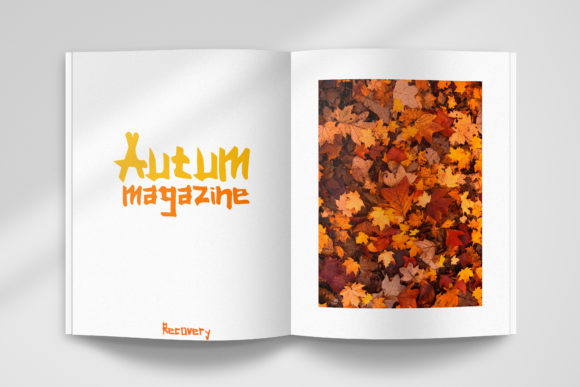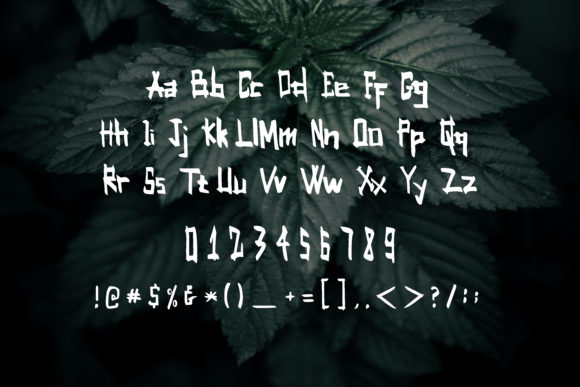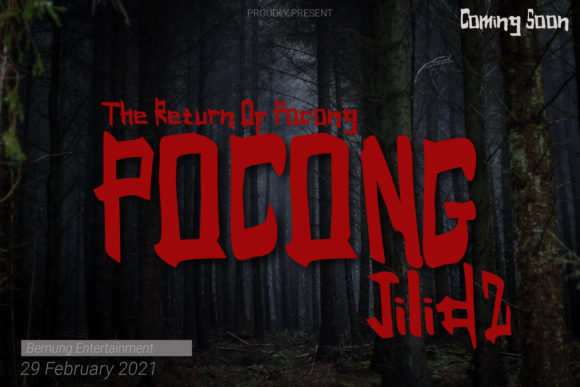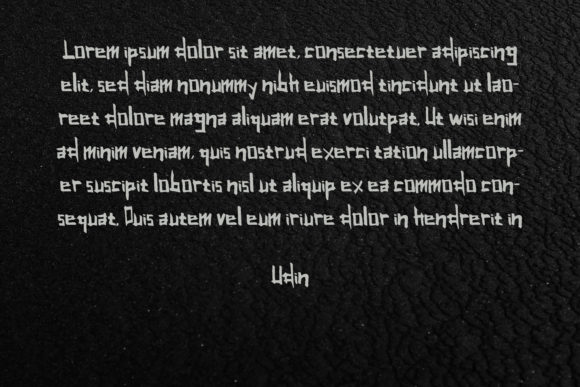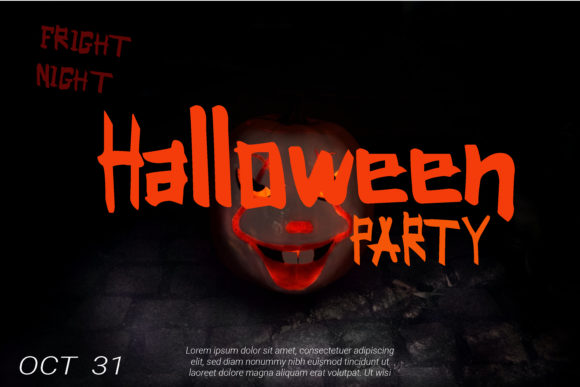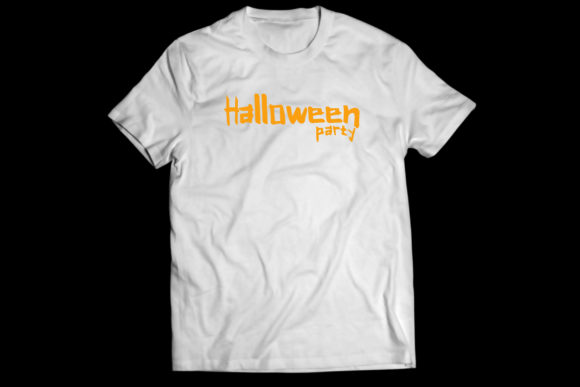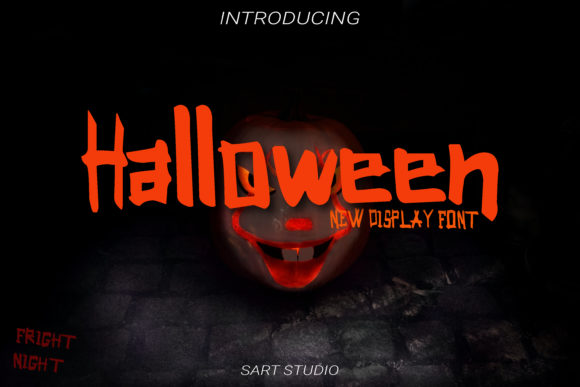
Unleash the Spooky Spirit: A Comprehensive Guide to Halloween Font
Halloween is just around the corner, and with it comes the excitement of creating spooky and fun designs for various projects. Whether you’re a designer, crafter, or simply a Halloween enthusiast, having the right font can make all the difference in bringing your ideas to life. That’s where the Halloween Font comes in – a fun and simple lettered display font designed specifically for Halloween-themed designs.
What is Halloween Font?
Halloween Font is a specially crafted font, perfect for creating eye-catching and festive designs for Halloween parties, decorations, and products. This font is a Halloween party themed display font, ideal for use on t-shirts, posters, movie titles, parties, product names, and any other Halloween-themed designs. Its playful and spooky style is sure to add a touch of Halloween spirit to your creations.
Key Features of Halloween Font
- Fun and Simple Design: The Halloween Font boasts a fun and simple lettered design that’s perfect for creating bold and eye-catching text.
- Halloween-themed: As the name suggests, this font is specifically designed with Halloween in mind, making it perfect for seasonal designs.
- Versatile: From t-shirts and posters to movie titles and product names, this font can be used for a wide range of Halloween-themed projects.
Uses of Halloween Font
The Halloween Font is incredibly versatile and can be used for a variety of projects, including:
- T-Shirts and Apparel: Create spooky and fun designs for Halloween t-shirts, hoodies, and other apparel.
- Posters and Flyers: Design eye-catching posters and flyers for Halloween parties, haunted houses, and other events.
- Movie Titles and Credits: Add a touch of Halloween spirit to your movie titles and credits with this spooky font.
- Product Names and Packaging: Use the Halloween Font to create spooky and fun product names and packaging for Halloween-themed products.
- Party Decorations: Create custom party decorations, such as banners and signs, with the Halloween Font.
Tips for Using Halloween Font
To get the most out of the Halloween Font, here are a few tips to keep in mind:
- Experiment with Colors: Try pairing the Halloween Font with different colors to create a unique and eye-catching design.
- Mix and Match Fonts: Combine the Halloween Font with other fonts to create a bold and interesting design.
- Play with Textures and Patterns: Add texture and pattern to your design by incorporating spooky elements, such as spider webs or pumpkins.
The Halloween Font is a fun and simple lettered display font that’s perfect for adding a touch of Halloween spirit to your designs. With its versatile design and wide range of uses, this font is sure to become a go-to for designers and crafters alike. Whether you’re creating spooky t-shirts, eye-catching posters, or fun party decorations, the Halloween Font is the perfect choice. So why wait? Download the Halloween Font today and start creating your own spooky and fun designs!